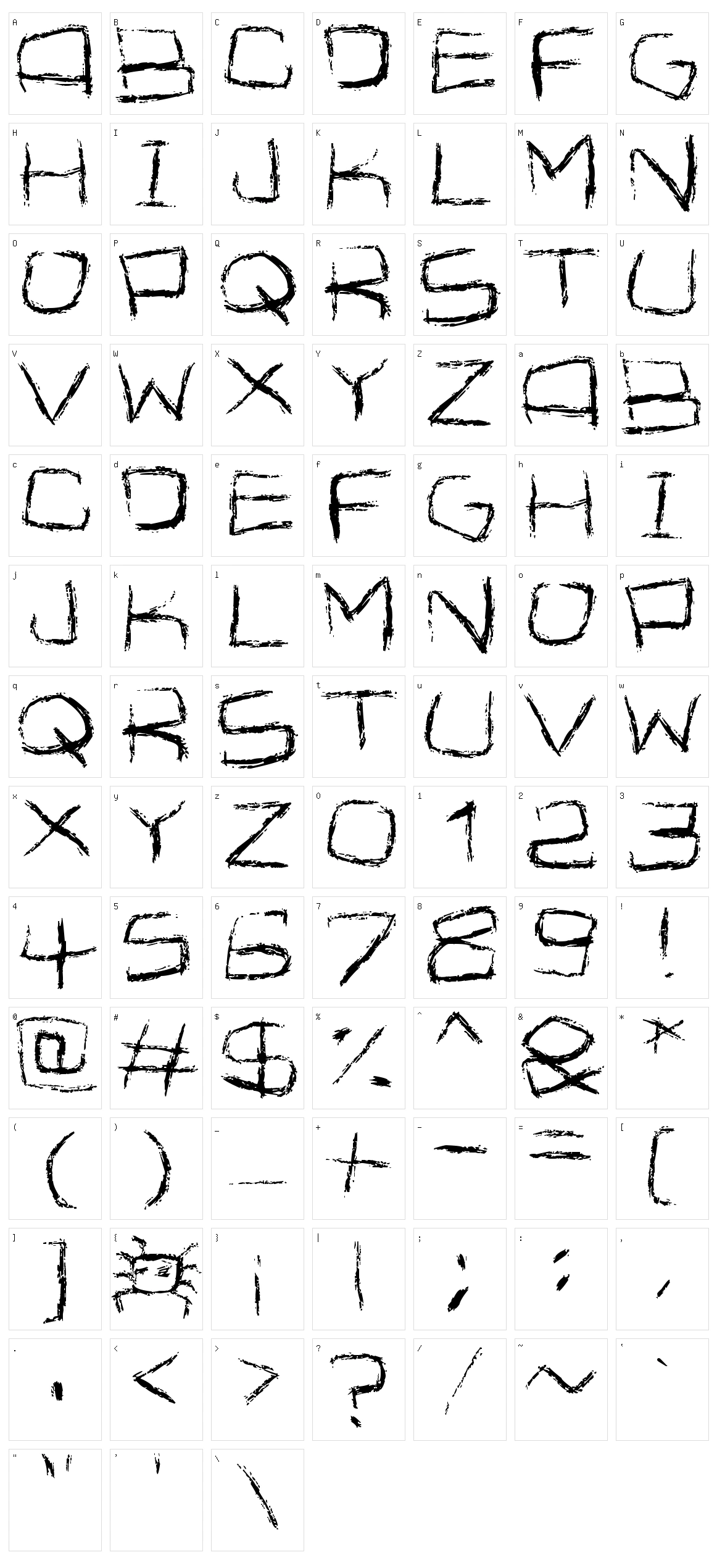
The free font Spidery is carefully designed by Hawtpixel, showcasing a thoughtful balance of creativity and usability and falls under the Trash font style. When you download the ZIP file, it contains only 225.83 KB of font files, making it lightweight and quick to download. Please review the license details below to understand permitted usage and distribution rights. If license information is not available, we recommend using this font for personal projects only or contacting the author directly for commercial usage permissions.